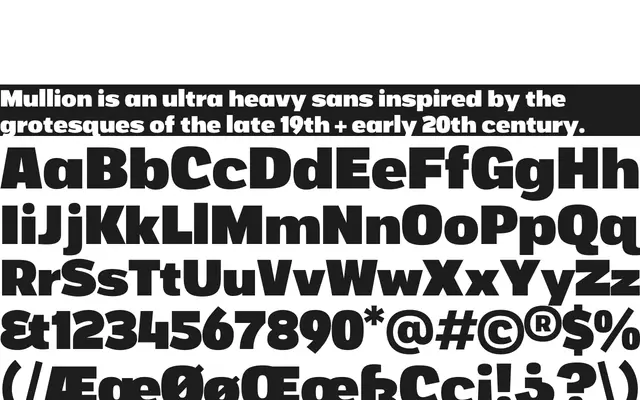
A single ultra-heavy grotesque drawing on late 19th and early 20th century advertising and signpainting traditions, built around strong vertical strokes and tight counterspaces.
Conceived around a dominant vertical axis, Mullion takes its name from the architectural term for the vertical dividing element in a window. That vertical emphasis is channelled into the letterform counterspaces, resulting in a face of considerable weight suited to editorial headers, identities and logomarks. Currently released as a single Heavy weight with 443 glyphs, three numeral styles and support for 200+ Latin-script languages, with a broader family of weights and styles planned.
A single ultra-heavy weight sans-serif drawing on late 19th and early 20th century grotesque models, with dominant vertical strokes and strong counterspaces; its weight and display intent place it firmly in the display category rather than a general-use grotesque.